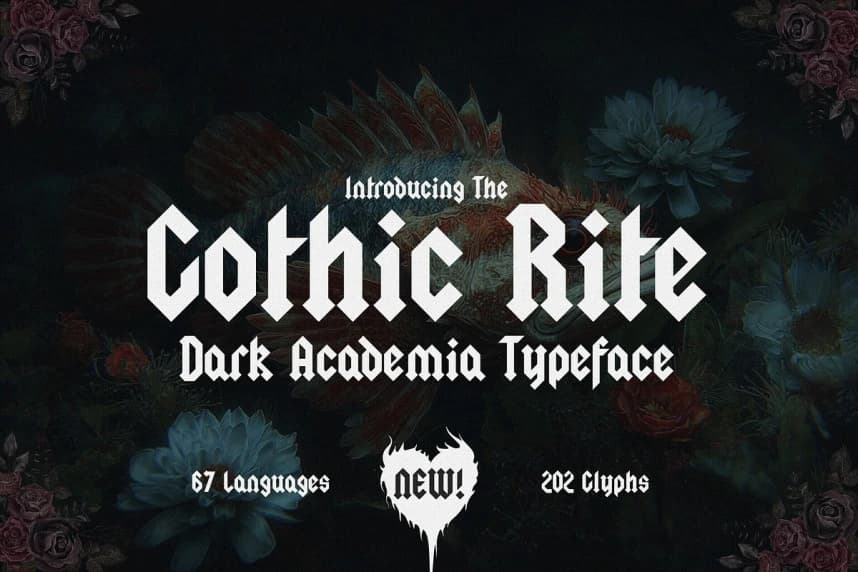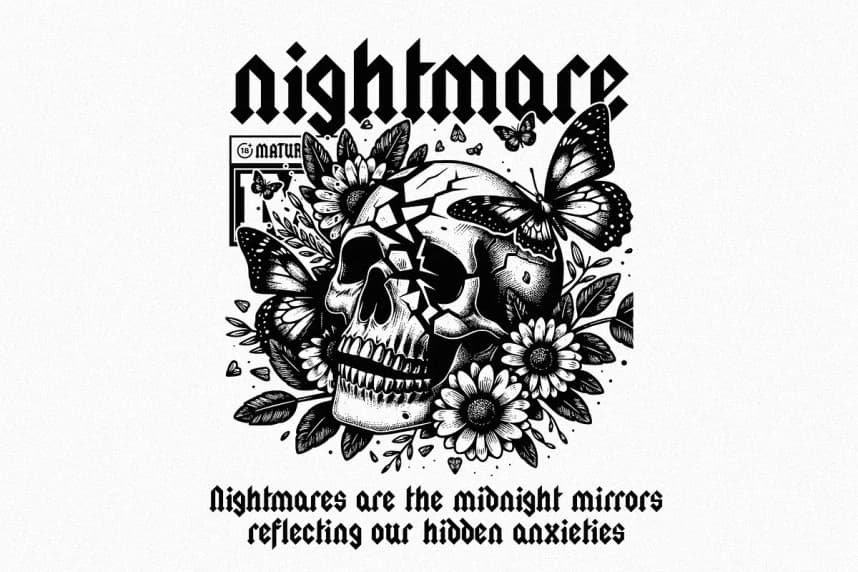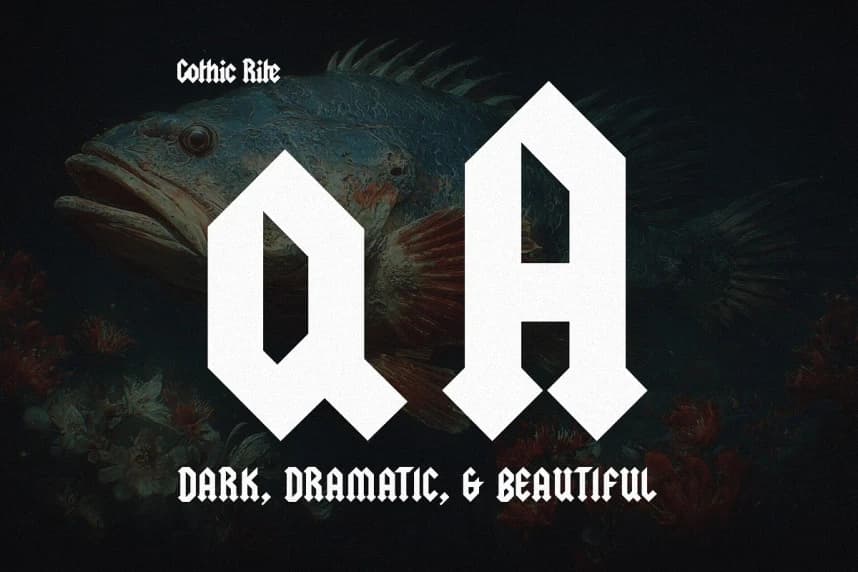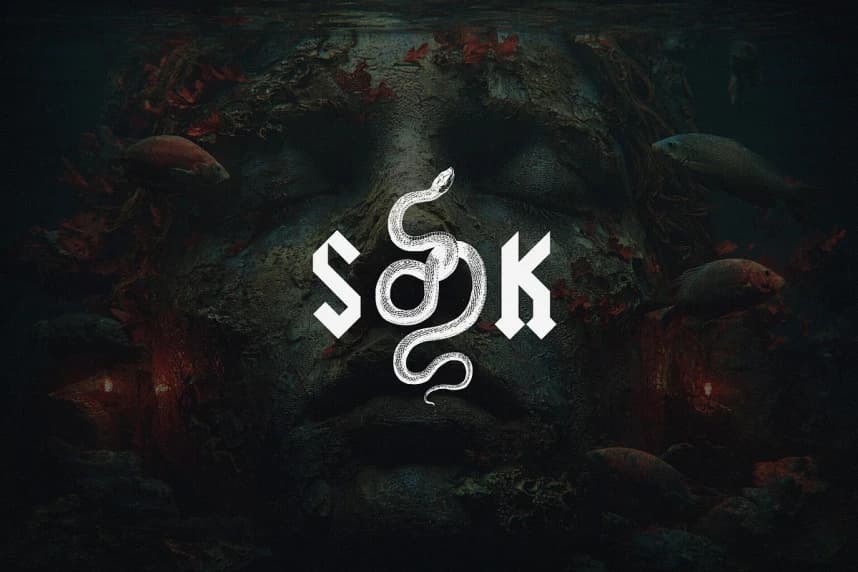
The Gothic Rite Font
The Gothic Rite Font, a striking blackletter typeface born from the soul of dark academia. With its 202 glyphs and support for 67 languages, this typeface is more than just lettering, it's an aesthetic, a ritual, a symbol of timeless rebellion and mystery.
The Gothic Rite